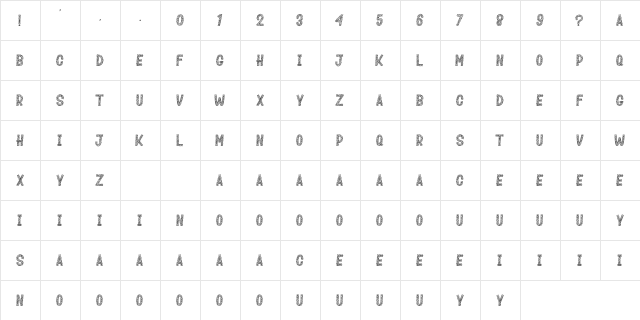
Mozaik Duren Regular
Design Context for Mozaik Duren Typeface
Mozaik Duren offers clean, dependable letterforms without strong stylistic allegiance, making it a practical choice for designers who need flexibility.
Pro Tip: Use Mozaik Duren in both headline and body roles to test its range before committing to a single application.